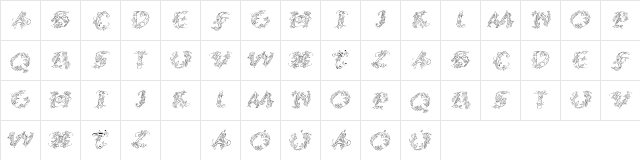
CalliPsoGrafia Italic
Design Context for CalliPsoGrafia Typeface
CalliPsoGrafia is a composed and adaptable typeface that performs quietly and consistently across a wide range of design contexts. The dynamic lean of this cut emphasises speed and emphasis in any layout.
Pro Tip: Use CalliPsoGrafia for emphasis, pull quotes, and subheadings where its slanted energy can add rhythm to the layout.